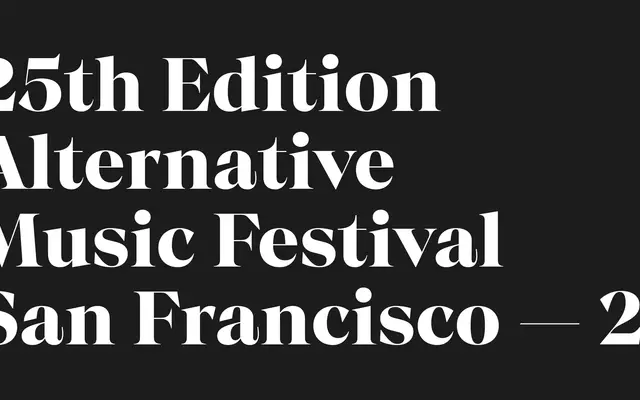
Chiaroscura
A high-contrast display serif with sharp terminals and compact proportions, inspired by the chiaroscuro technique of light and shadow in visual art.
Fourteen styles span seven weights from ExtraLight to Black, each with a matching italic, giving designers flexibility across print and digital headline work. The sharp terminals and compressed vertical proportions lend it a refined, fashion-adjacent character suited to editorial mastheads, album artwork and luxury branding. Extended Latin character support includes diacritics, fractions and superscripts.
High contrast, sharp terminals and compact vertical proportions place this firmly in the display serif category, drawing on the chiaroscuro art technique of strong light-dark contrast as its typographic principle.